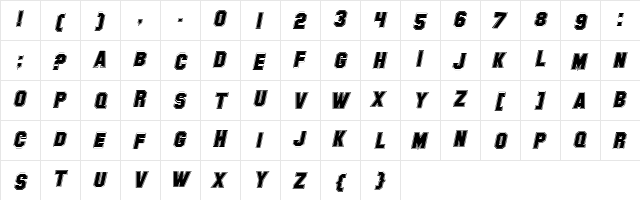
Collegerion Regular
Design Context for Collegerion Typeface
Collegerion has the bold swagger of sports branding: strong, assertive letterforms designed to dominate headlines and jerseys alike.
A natural choice for gym brands, fantasy sports, jersey lettering, and action-driven headlines.
Pro Tip: Use Collegerion in all-caps headlines where its athletic energy can fully express itself. Pair with a solid, simple sans for supporting text.